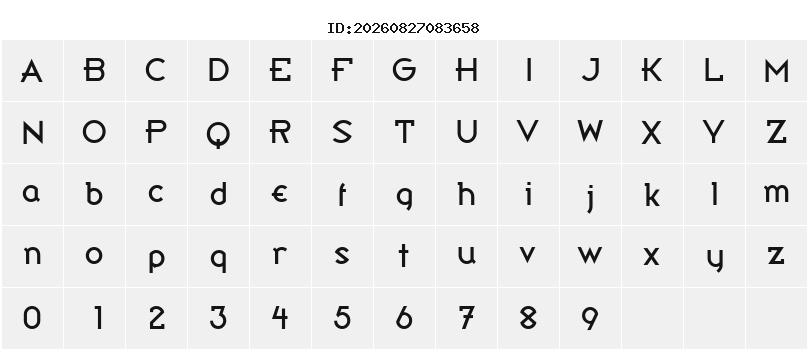
404-CAI978 Preview
• Font Name: 404-CAI978
• Full Font Name: 404-CAI978
• Version: Version 1.00 January 12, 1929, initial release
About 404-CAI978.ttf
404-CAI978.ttf is a modern, elegant sans-serif font designed for ultimate readability and visual harmony. Perfect for branding, headlines, web design, and print materials.